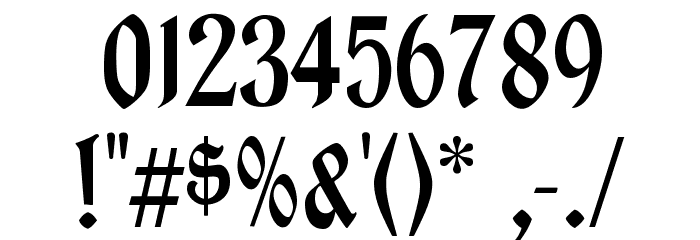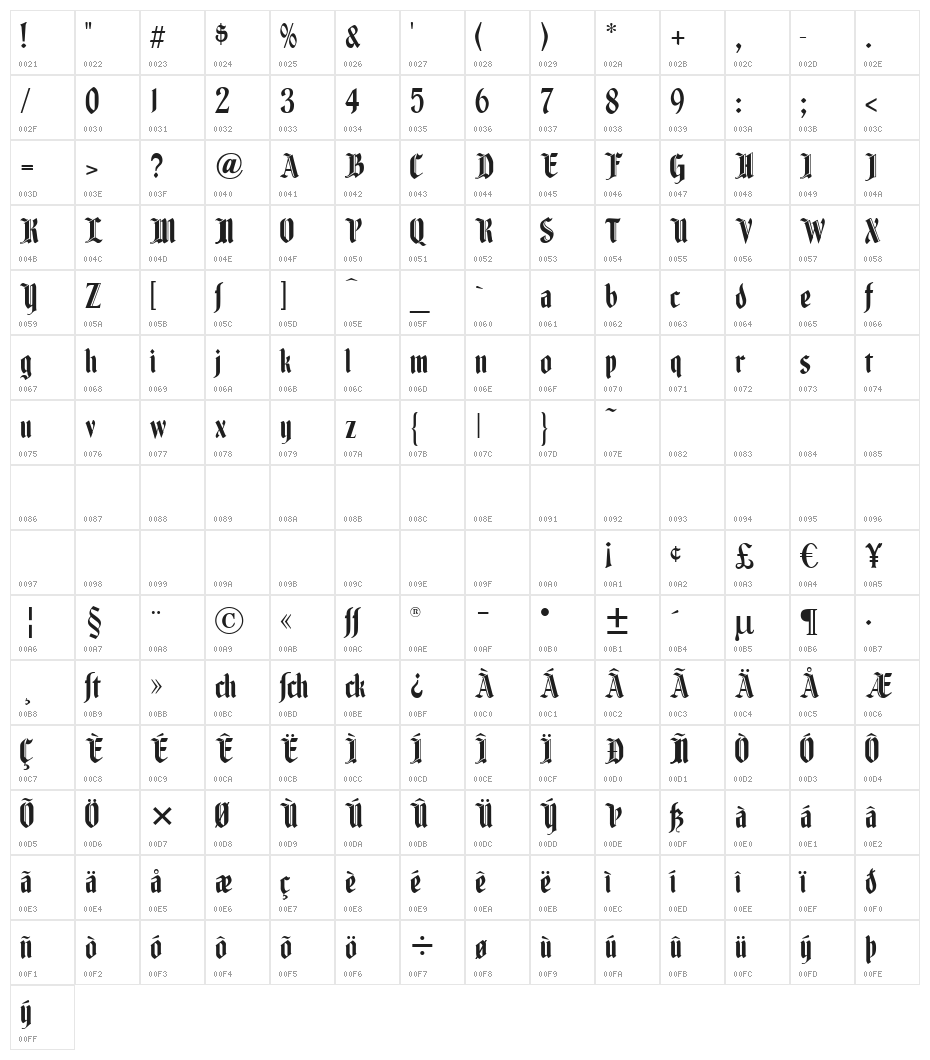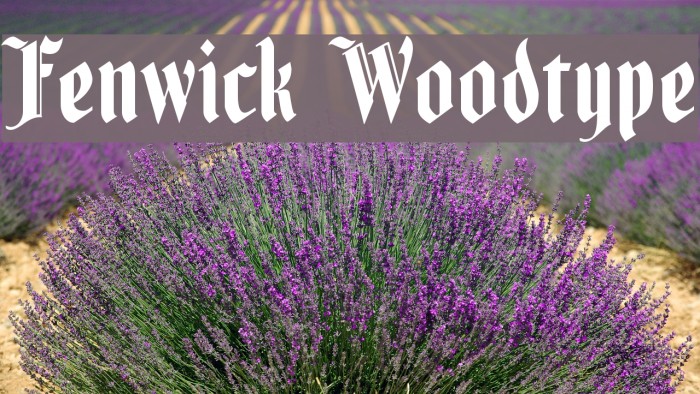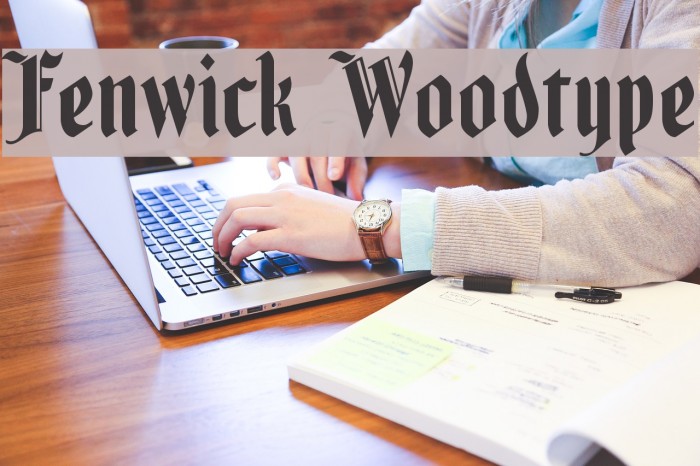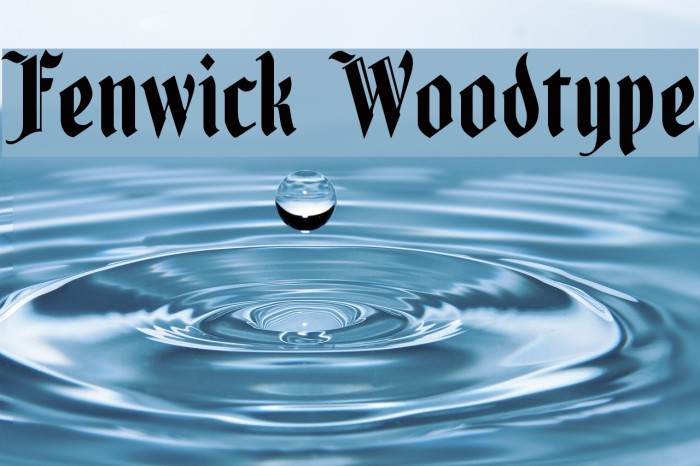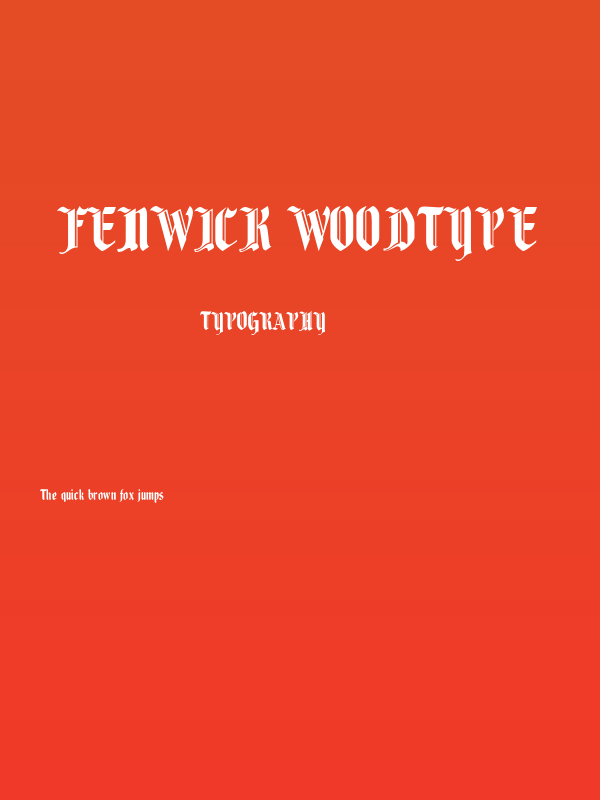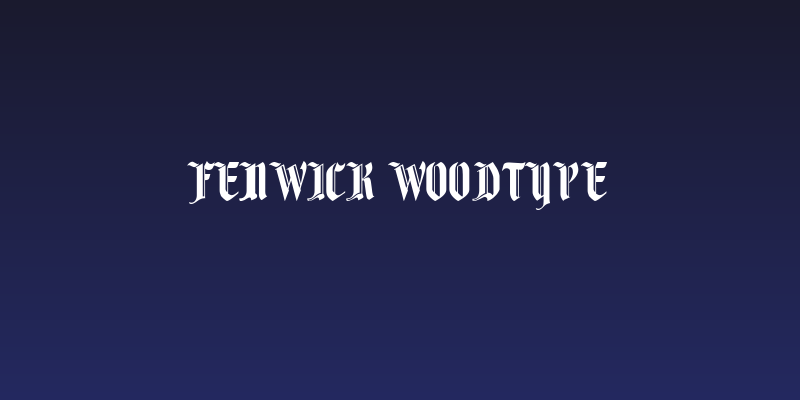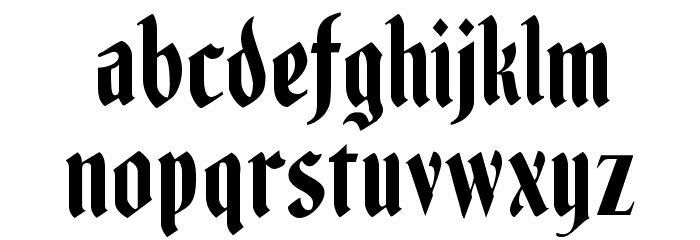
Fenwick Woodtype Font
Fenwick Woodtype Description
This font features a bold and striking blackletter style, reminiscent of traditional Gothic typefaces. The characters are sharply defined with dramatic, angular strokes and pointed serifs, giving it a historic and authoritative presence. The uppercase letters are particularly ornate, with intricate detailing that enhances their visual impact. The lowercase letters maintain a consistent style, offering a cohesive look across different text sizes. Numerals and special characters are designed to match the overall aesthetic, ensuring uniformity throughout. This font is ideal for projects that require a touch of vintage elegance and formality.
| Use Case | Headlines, Logos, Decorative text |
| Proposed Projects | Suitable for historical documents, certificates, book covers, posters, and branding that requires a vintage or formal touch. |